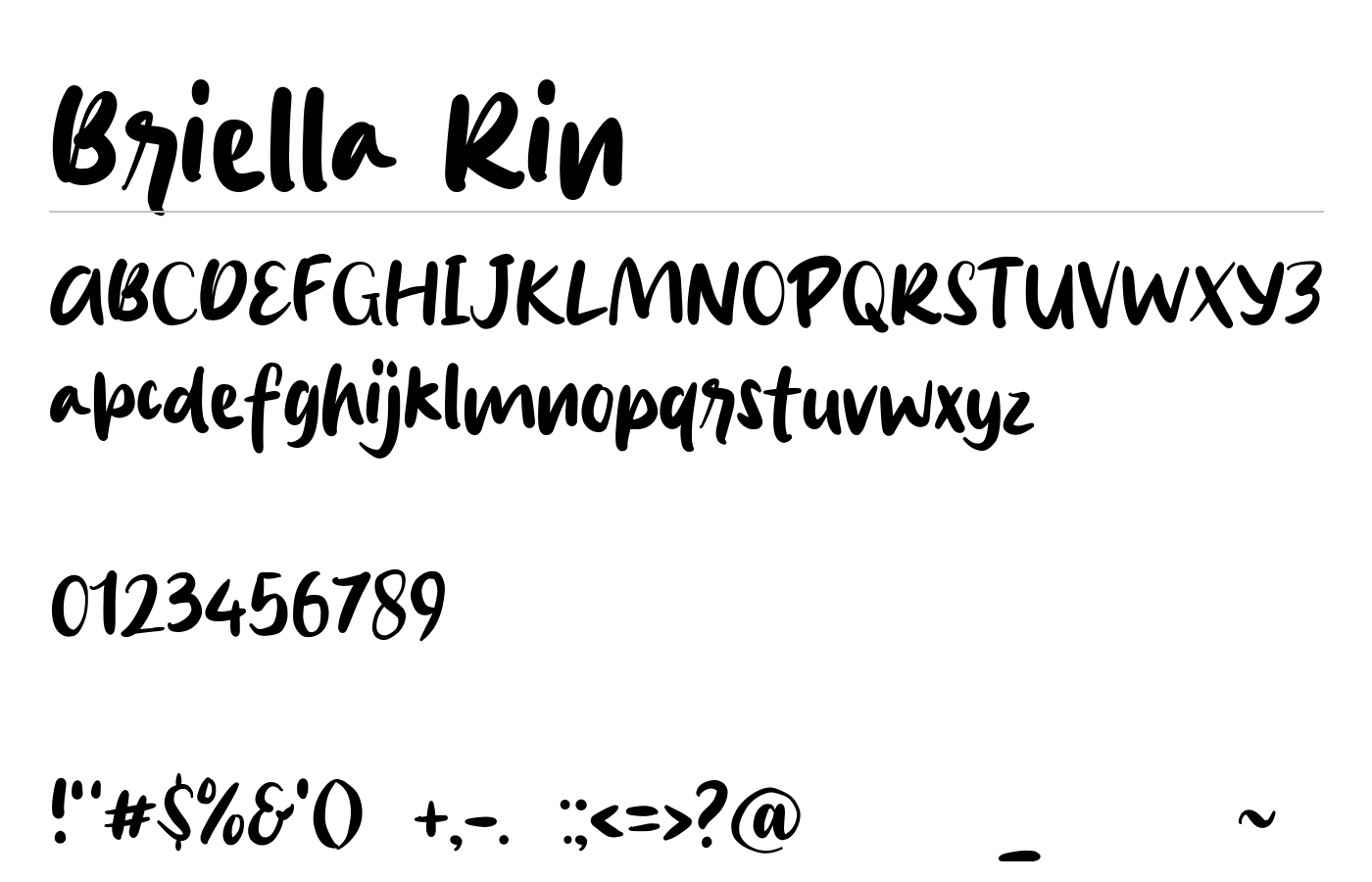
Briella Rin is a lively, handwritten script font with a bold and playful character. Its casual brushstroke style and rounded forms give it a friendly, approachable feel, making it perfect for informal branding, creative projects, and eye-catching headlines where personality and warmth are desired. This font works well for logos, social media graphics, and packaging that aim to convey a fun and personal touch.
Briella Rin Font
About Briella Rin Font